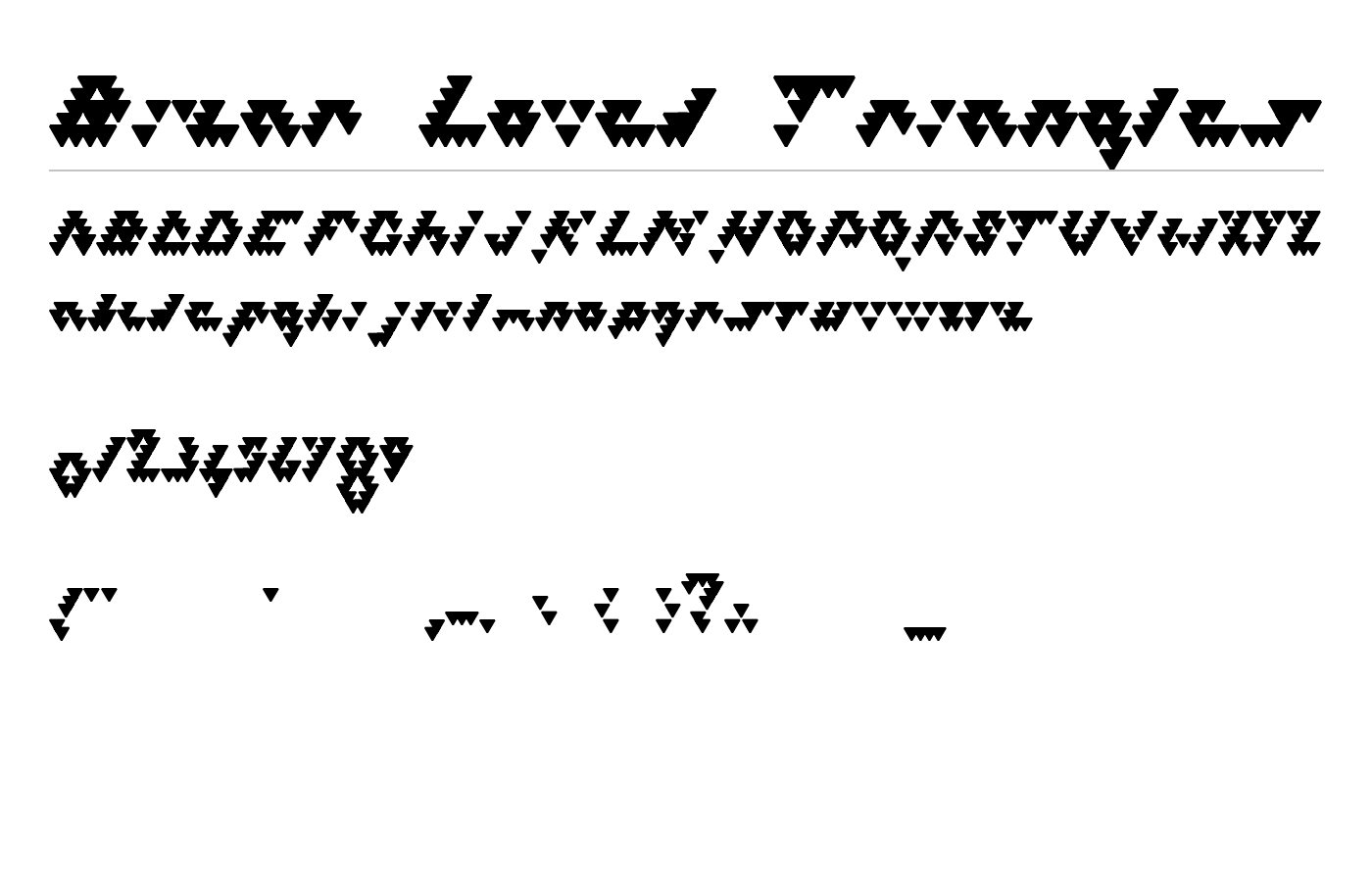
Bizar Loved Triangles is a bold, decorative display font made entirely from small black triangles, giving it a striking geometric and pixelated look. This unique design is best suited for eye-catching headlines, logos, and creative projects that want to convey a modern, tech-inspired, or playful vibe. Its intricate triangular pattern makes it ideal for standout designs rather than continuous text.
Bizar Loved Triangles Font
About Bizar Loved Triangles Font
| Font family | Bizar Loved Triangles Font |
| Designer | Swimmingpoulp |